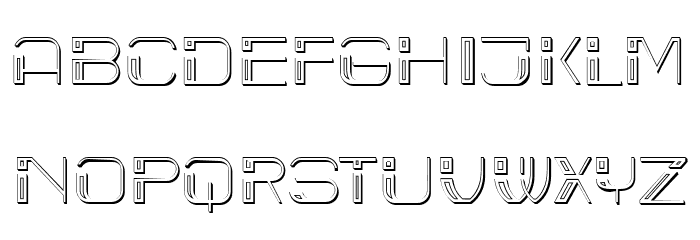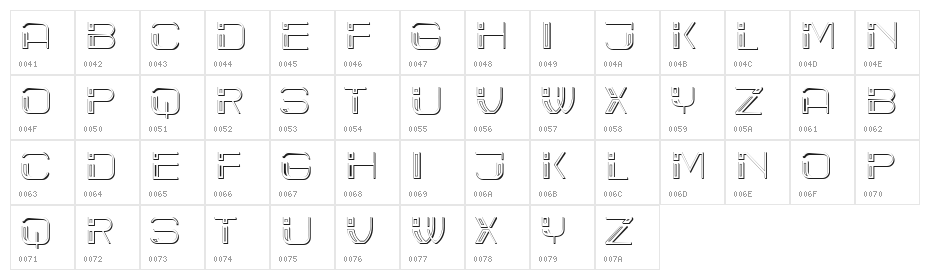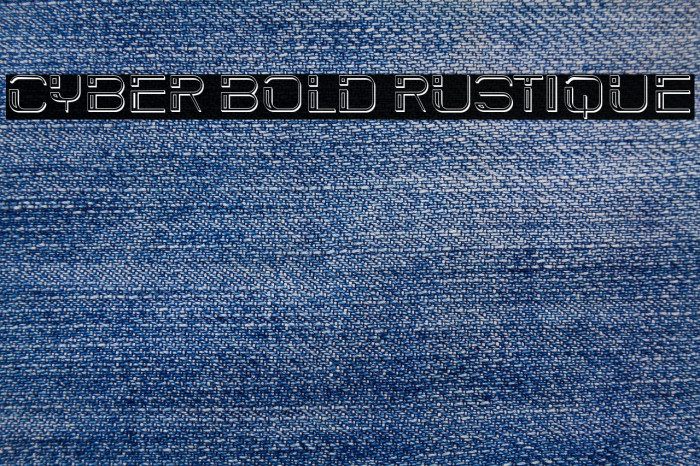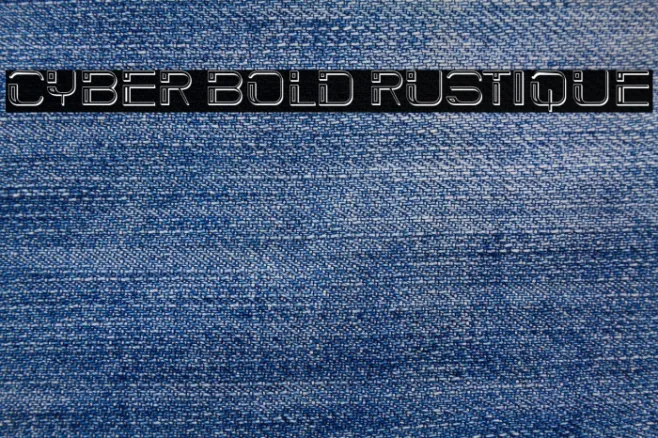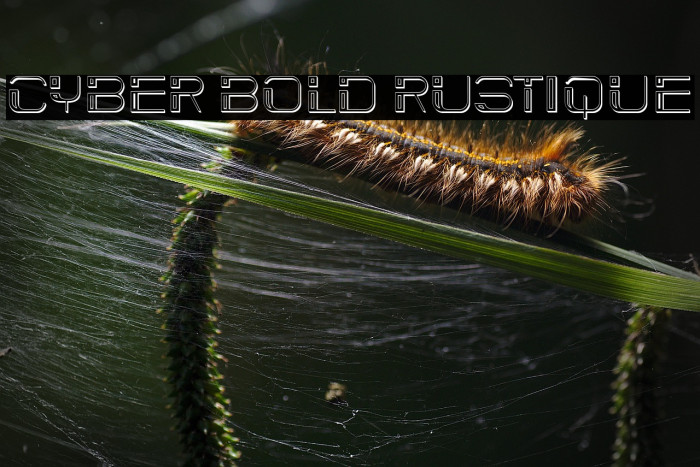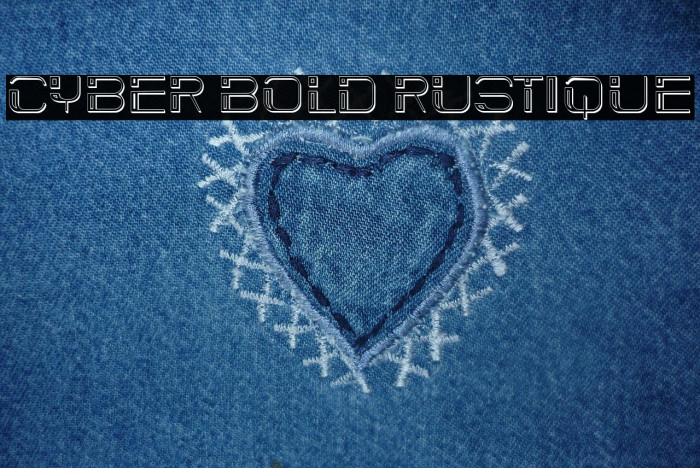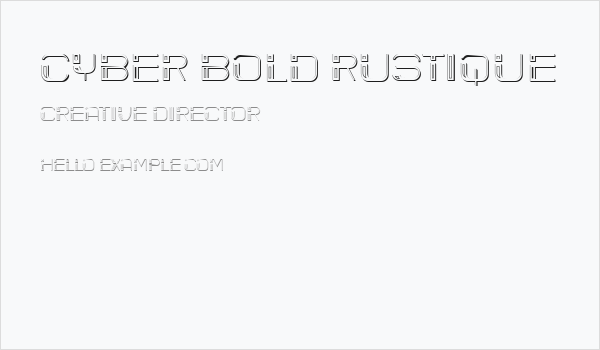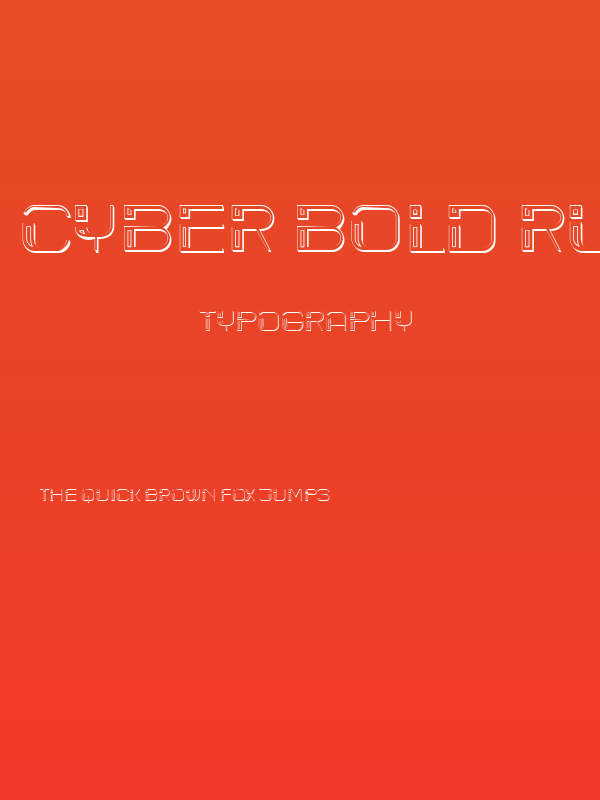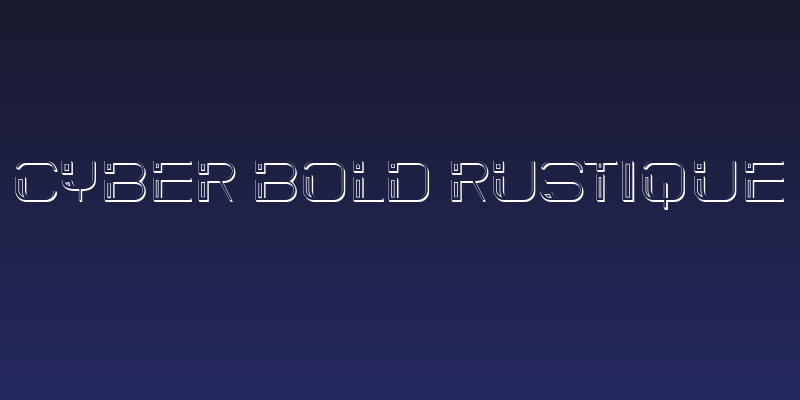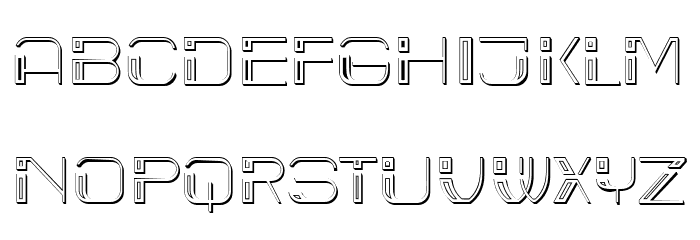
Cyber Bold Rustique Font
Cyber Bold Rustique Description
This font features a futuristic and industrial design, characterized by its bold and geometric letterforms. The characters are outlined with a double-line effect, giving them a three-dimensional appearance. The strokes are consistent in width, creating a uniform look across all letters. The angular and mechanical style suggests a modern, tech-inspired aesthetic, making it suitable for projects that require a cutting-edge and innovative feel. The uppercase letters are particularly striking, with unique shapes and angles that enhance the overall dynamic appearance of the font.
| Proposed Projects | Ideal for tech branding, sci-fi themed posters, video game titles, and futuristic product packaging. |